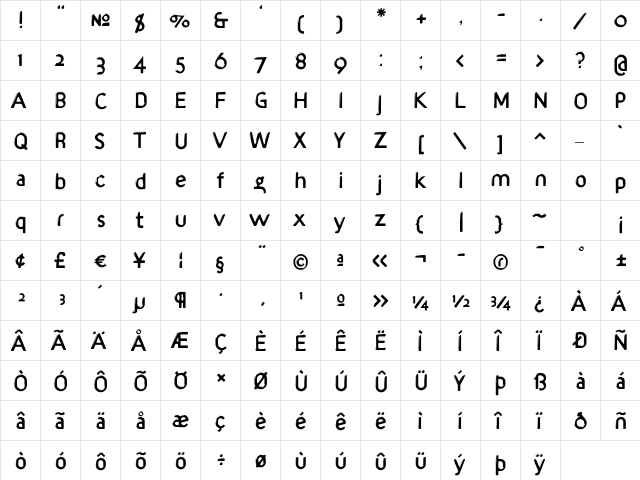
TargetMold Regular
Design Context for TargetMold Typeface
TargetMold offers clean, dependable letterforms without strong stylistic allegiance, making it a practical choice for designers who need flexibility.